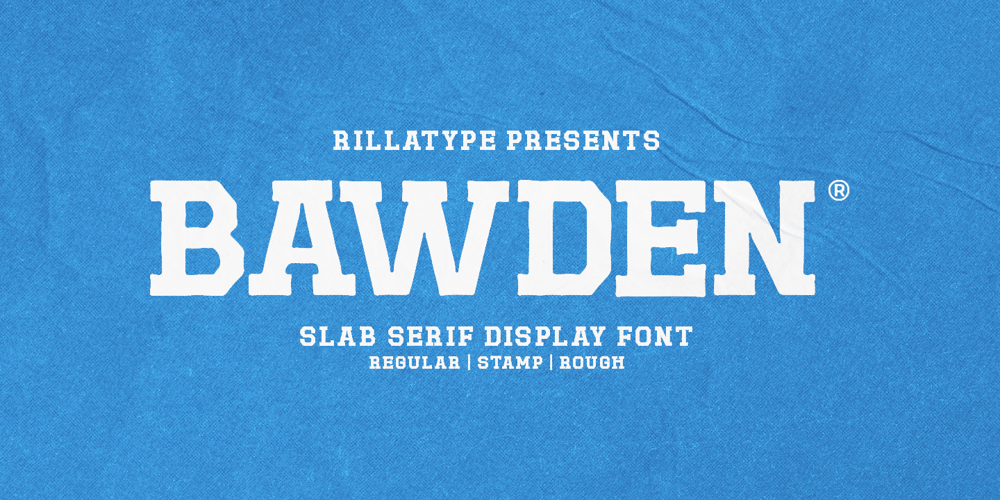
Bawden
Bawden font
Bawden Font Family was designed by Gustian Agung Asprilla and published by Rillatype. Bawden contains 3 styles and family package options. Introducing Bawden, a versatile slab serif display font designed to make a bold statement. With three distinct styles – Regular, Stamp, and Rough – Bawden offers flexibility and character for a wide range of design projects.The Regular style provides a clean and strong look, perfect for headlines, logos, and branding. The Stamp style adds a vintage, worn effect, ideal for creating a retro aesthetic or giving a handcrafted feel to your designs. The Rough style brings a textured, rugged appearance, making it perfect for designs that require a more organic and edgy look.Whether you’re working on posters, packaging, or any creative project that needs a touch of boldness and personality, Bawden has you covered. Embrace the power of this slab serif display font and bring your designs to life with its unique styles.